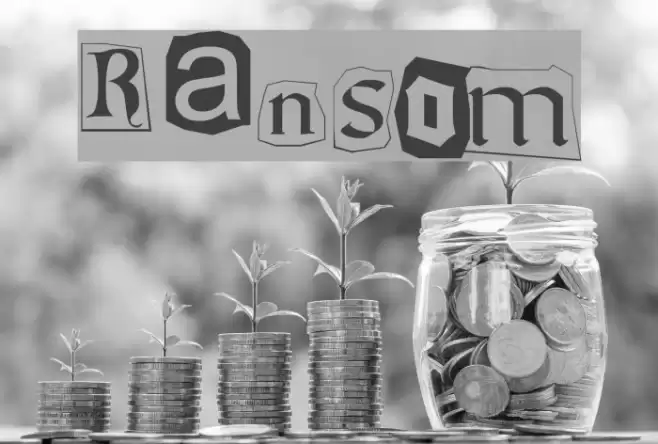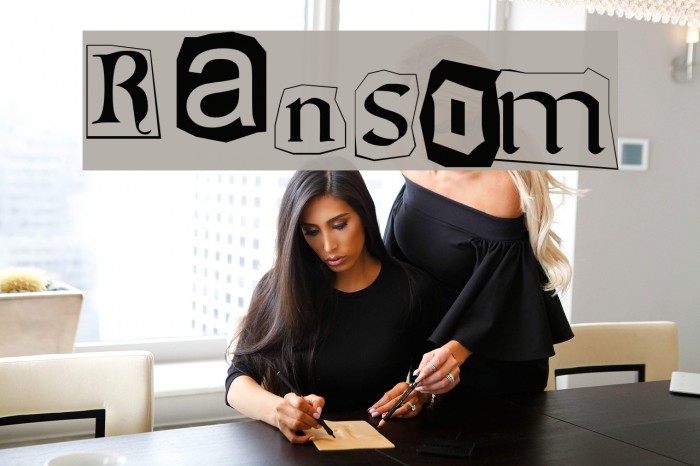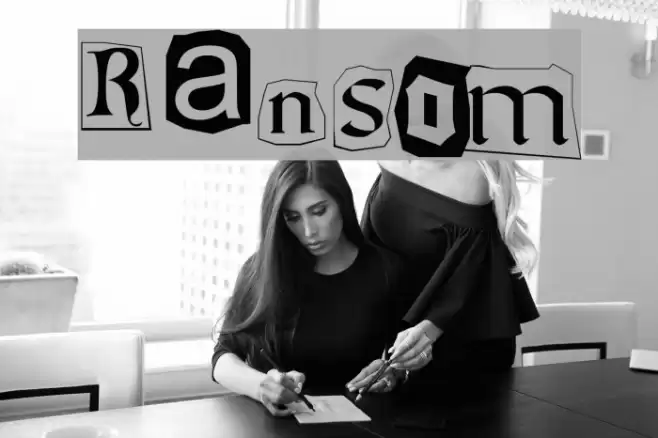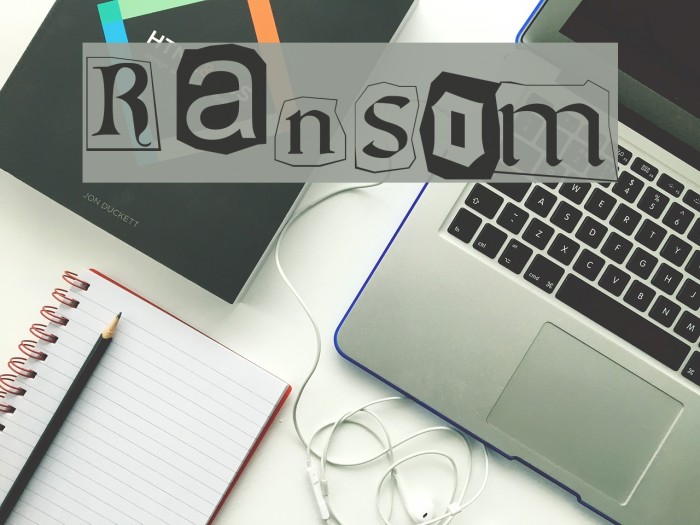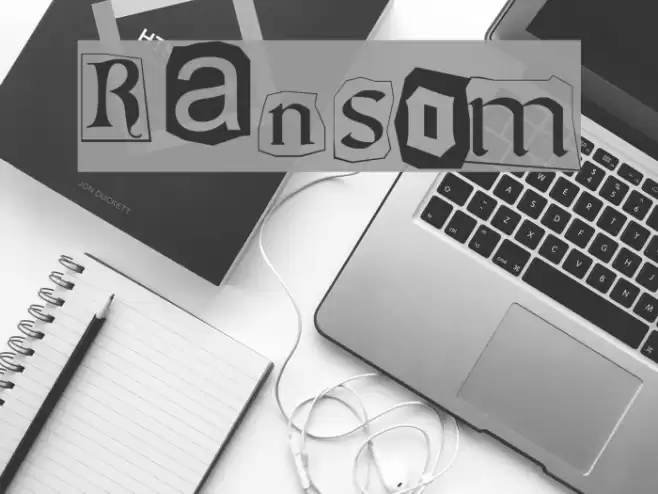
Ransom Font
Ransom Description
This font is a playful and eclectic mix of styles, reminiscent of letters cut from magazines or newspapers. Each character appears to be individually styled, creating a collage effect that is both chaotic and visually engaging. The uppercase and lowercase letters, as well as numbers and special characters, all maintain this mismatched aesthetic, making it ideal for projects that require a sense of whimsy or unconventional design. The font's unique appearance draws attention and adds a dynamic element to any text it is used in.
| Proposed Projects | Ideal for creative projects such as posters, album covers, or any design that benefits from a quirky, unconventional look. |